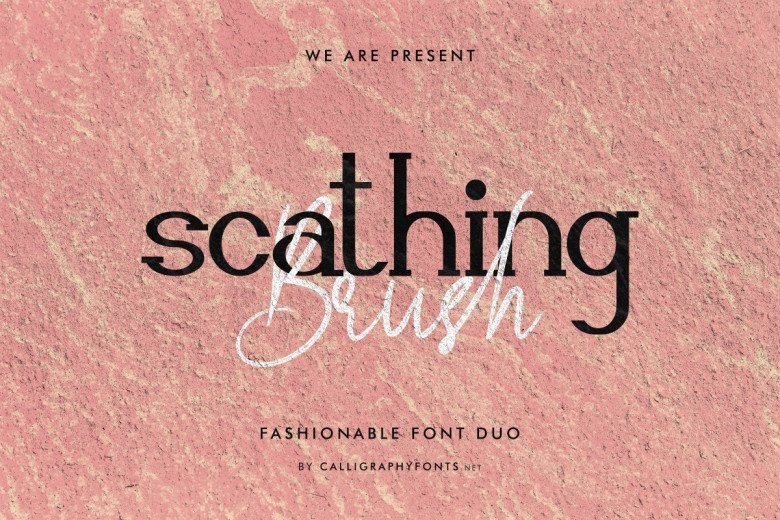
Scathing Brush Font Duo
Scathing Brush Font Duo is a Font duo with 2 different font style : Sans and Signature Textured Brush script font. The style of this font are modern, elegant, luxury, glamour, classic and sophisticated brush pen.